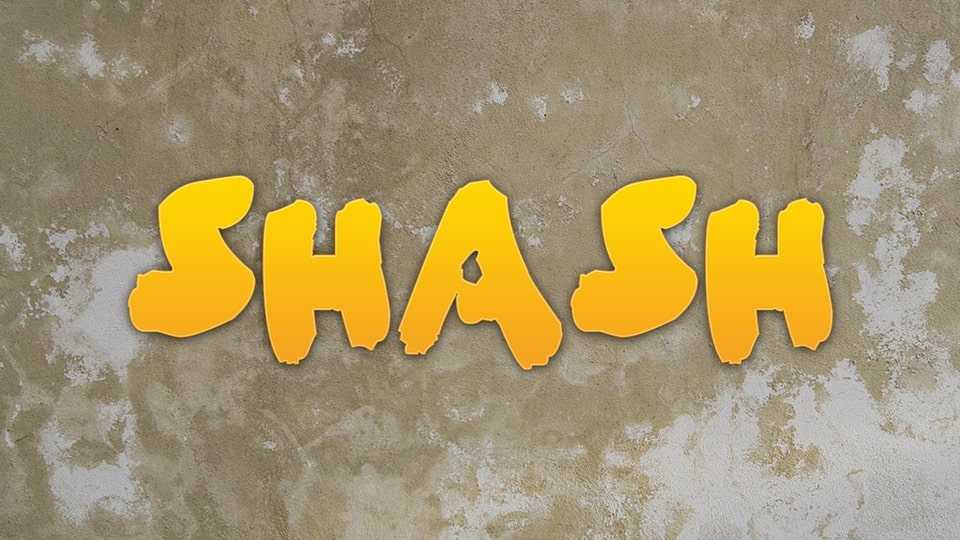
Download Shash font, a bold and dynamic grunge typeface that packs a powerful punch with its rough brush strokes and edgy aesthetic. Shash font is a statement-maker, perfect for projects that demand a bold, rebellious, and urban edge.